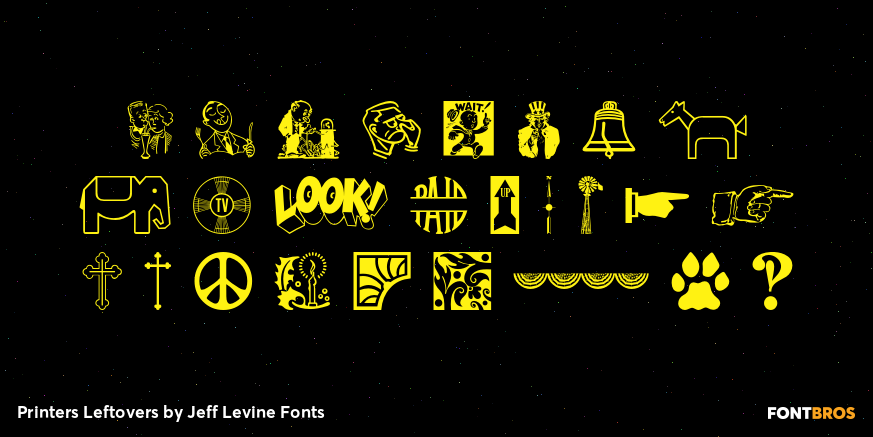
Printers Leftovers
Printers Leftovers JNL has an assortment of cartoons, embellishments, ornaments and decorations that span many eras and cover numerous tastes and styles.